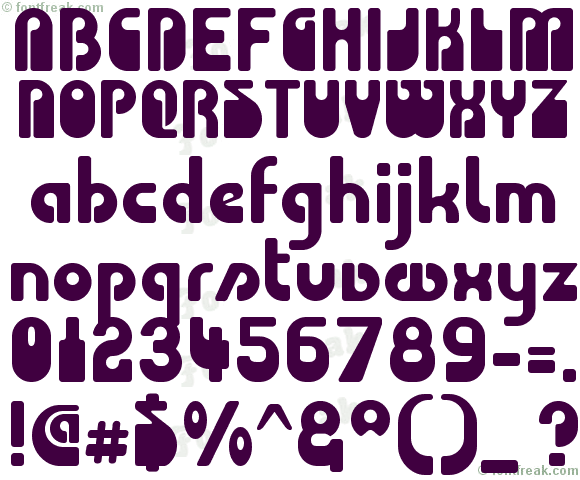
Choda
Choda Chado
Choda is a striking display font designed by Gemfonts in 2001, offering a unique blend of modern aesthetics and playful charm. This freeware typeface is characterized by its bold geometric shapes and rounded edges, which give it a friendly and approachable appearance. The stroke weight is consistent throughout, providing a sense of uniformity while the subtle contrast in certain letterforms adds visual interest. The spacing is well-balanced, making it suitable for various applications without sacrificing readability.
Choda is perfect for a variety of creative projects. Its distinctive style makes it an excellent choice for eye-catching wedding invitations, where its playful yet elegant look can set a joyful tone. Additionally, it works beautifully on movie posters, where the boldness of the font can capture attention and convey excitement. Restaurant menus can also benefit from Choda’s unique character, enhancing the overall dining experience and inviting patrons to explore the offerings. Furthermore, small business owners looking to create memorable branding will find Choda an ideal choice for logos and promotional materials, as it effortlessly communicates personality and style.
The target audience for Choda includes graphic designers, content creators, and small business owners who seek a versatile font that stands out. Whether you're designing for print or digital media, Choda can elevate your project with its distinctive flair.
What sets the Choda font apart is its ability to blend functionality with a lighthearted feel. It captures attention without overwhelming the viewer, making it an ideal choice for those looking to make a lasting impression. With the Choda font free download available, there’s no reason not to incorporate this delightful typeface into your next design project.